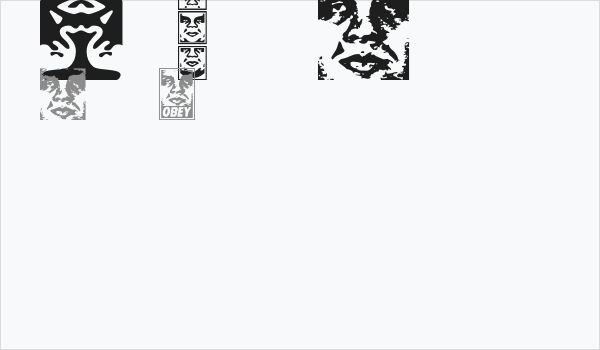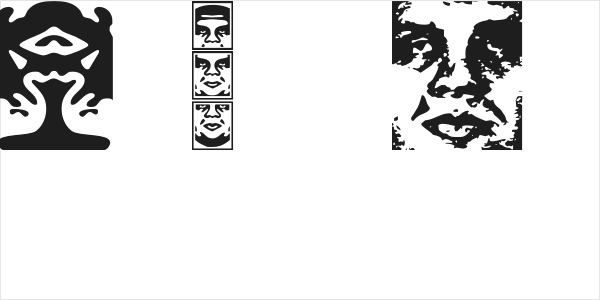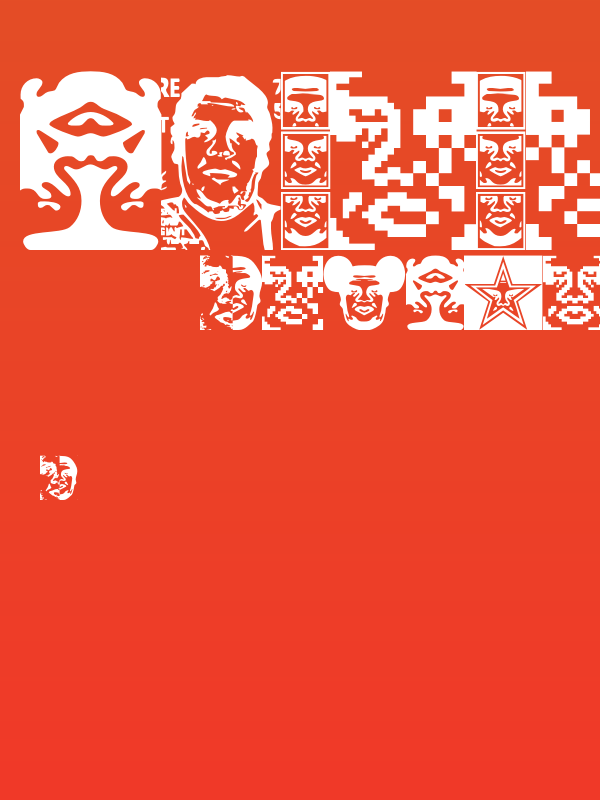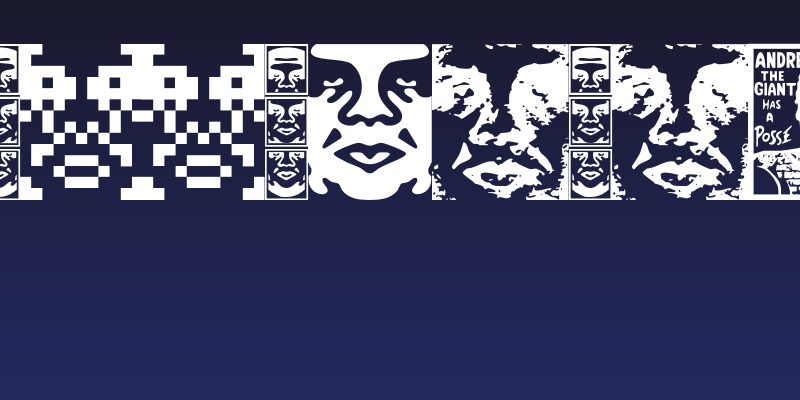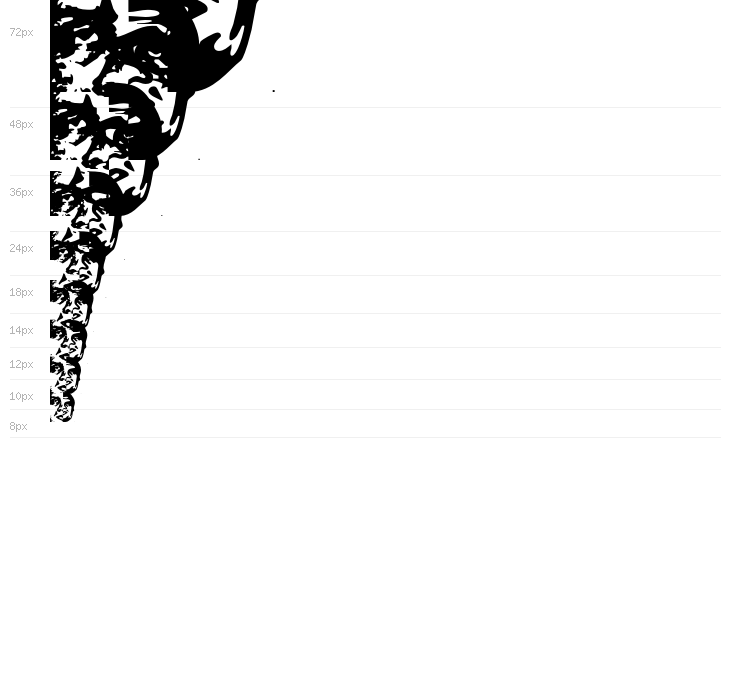
ObeyEssenceCaps Font
ObeyEssenceCaps Description
This is not a valid font. The image contains graphic elements and designs rather than a complete set of alphanumeric characters typically found in a font. It features iconic imagery and branding elements associated with a well-known art campaign, but does not provide a usable typeface for text composition.
| Use Case | Artistic branding, Posters |
| Proposed Projects | This image is more suited for artistic or branding projects rather than typographic uses. |